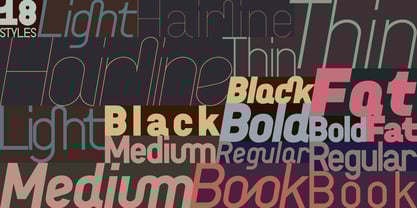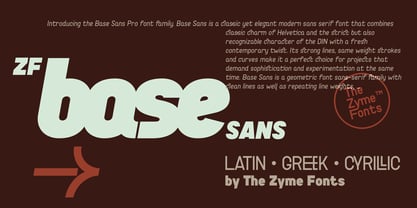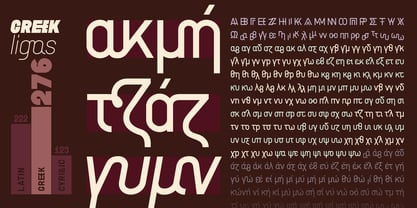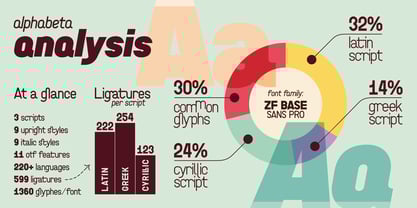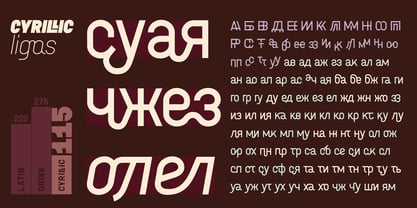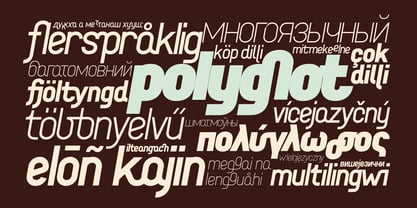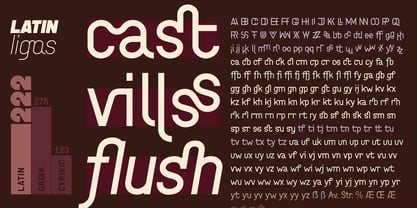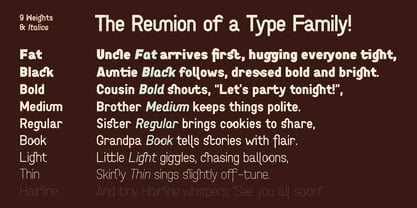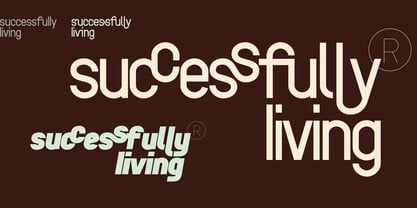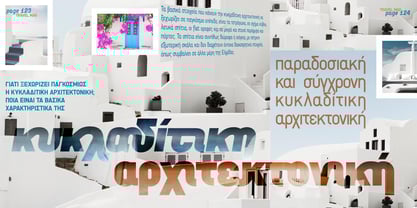
ZF Base Sans Pro
The ZF Base Sans Pro Font Family was designed by Babis Touglis and published by The Zyme. ZF Base Sans Pro contains 18 styles and family package options. More about this family
Base Sans is a classic yet elegant modern sans serif font that combines classic charm of Helvetica and the strict but also recognizable character of the DIN with a fresh contemporary twist. Its strong lines, same weight strokes and curves make it a perfect choice for projects that demand sophistication and experimentation at the same time.
Base Sans is a geometric font with a its general look is a classic font with minimal stroke contrast and slightly condensed proportions for improved readability, effectiveness and practice, while the geometrically based lowercase provides structural clarity and style. Its simplicity in design focuses attention, which helps to convey a message or intent quickly and effectively. Also offers many ligatures and other features for desigs more complex with an extra touch of luxury!
However, its design structure gives the font one particularly basic feature: the ease with which it offers the possibility of composing a few words into an interesting graphic effect with the minimal effort! As the design avoids decorative details, maintaining a steady rhythm across lines, its use is therefore ideal for designing a logo and branding, a poster or the titles of newspapers, magazines, for cultural events, scientific topics, music industry, signage, fashion, product packaging, etc., both in their printed application and in digital media.
With real Italics that give in many cases even better result with more harmony, as additional glyphs based on manuscripts.
Key Characteristics:
9 weights with matching italics
3 scripts (Extended Latin, Cyrillic, Greek)
Supports 220+ languages
A total of 500+ new, first seen, ligatures equally distributed across all languages
Slightly narrowed letterforms
Conventional sans-serif forms for consistent reading flow
Advanced spacing and kerning across all styles